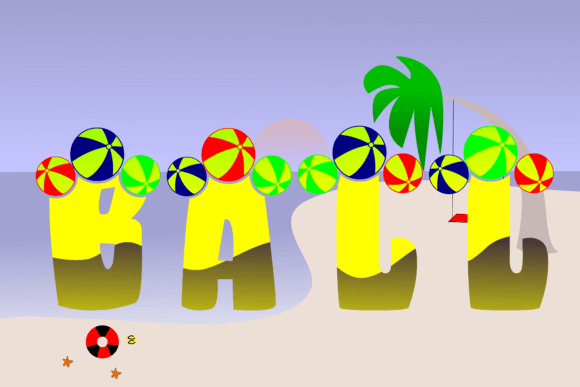
Dive into the world of Ball Font, a captivating decorative font that exudes charm and playfulness. Crafted by the talented Rusd Studio, Ball Font belongs to a font family that is specifically designed for creating captivating monogram logos. With its fresh, playful, and fun vibe, Ball Font is the perfect choice for a wide range of creative projects, from formal school assignments to informal children's activities.
Step into a world of boundless creativity, where Ball Font's enchanting curves and delightful details bring your designs to life. Its charming and playful nature makes it the ideal choice for adding a touch of whimsy and joy to your projects. Whether you're creating personalized stationery, designing eye-catching posters, or crafting unique branding materials, Ball Font is your perfect font partner.
Unleash your imagination and let Ball Font's playful personality shine through. Its versatile and adaptable nature makes it suitable for a diverse range of projects. Create mesmerizing monograms, add a touch of fun to your social media posts, or design stunning invitations that will leave a lasting impression.
With Ball Font, the possibilities are endless. Embrace its charm, let your creativity flow, and embark on a journey of artistic expression. Discover the joy of creating with Ball Font today and see how it transforms your projects into masterpieces.